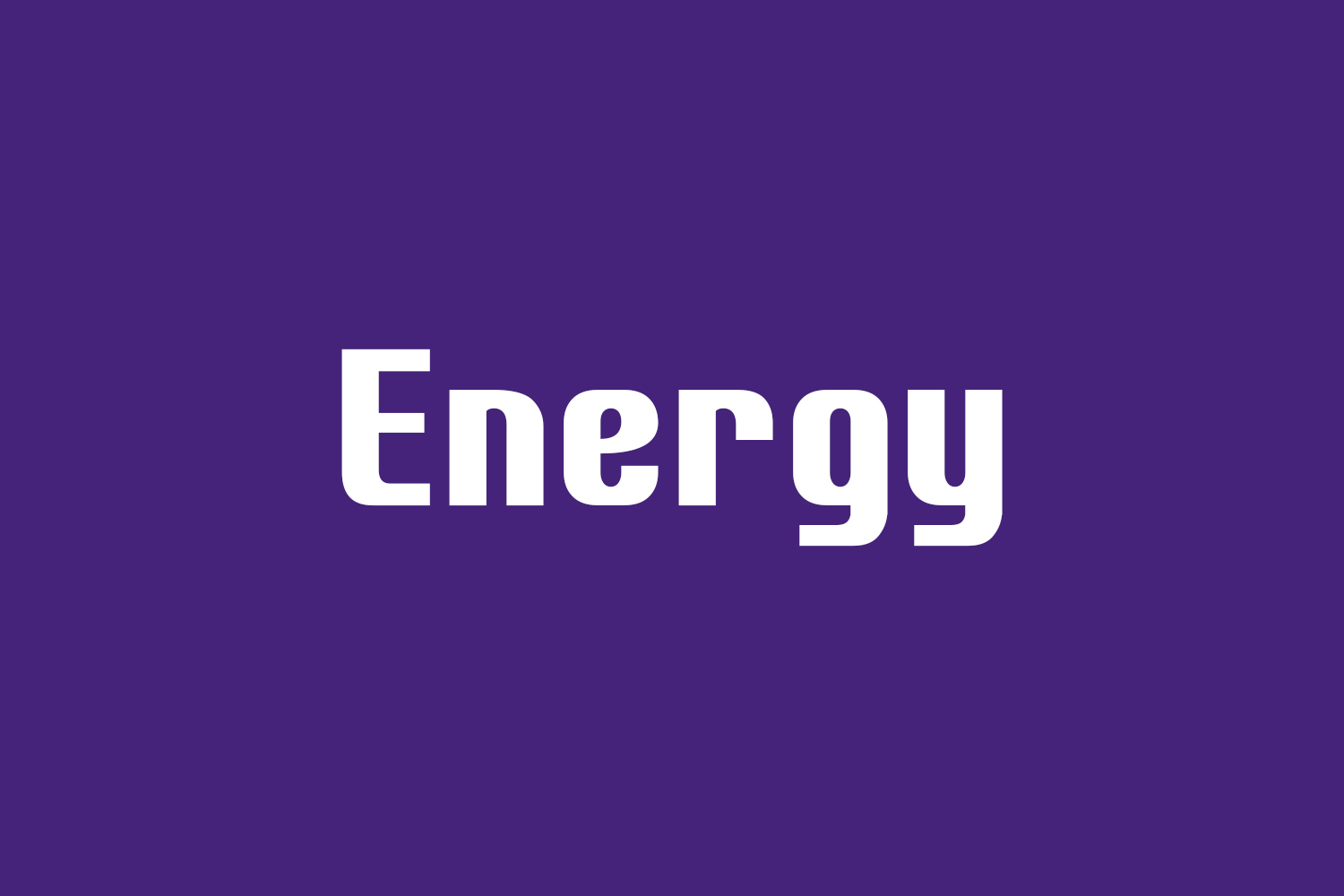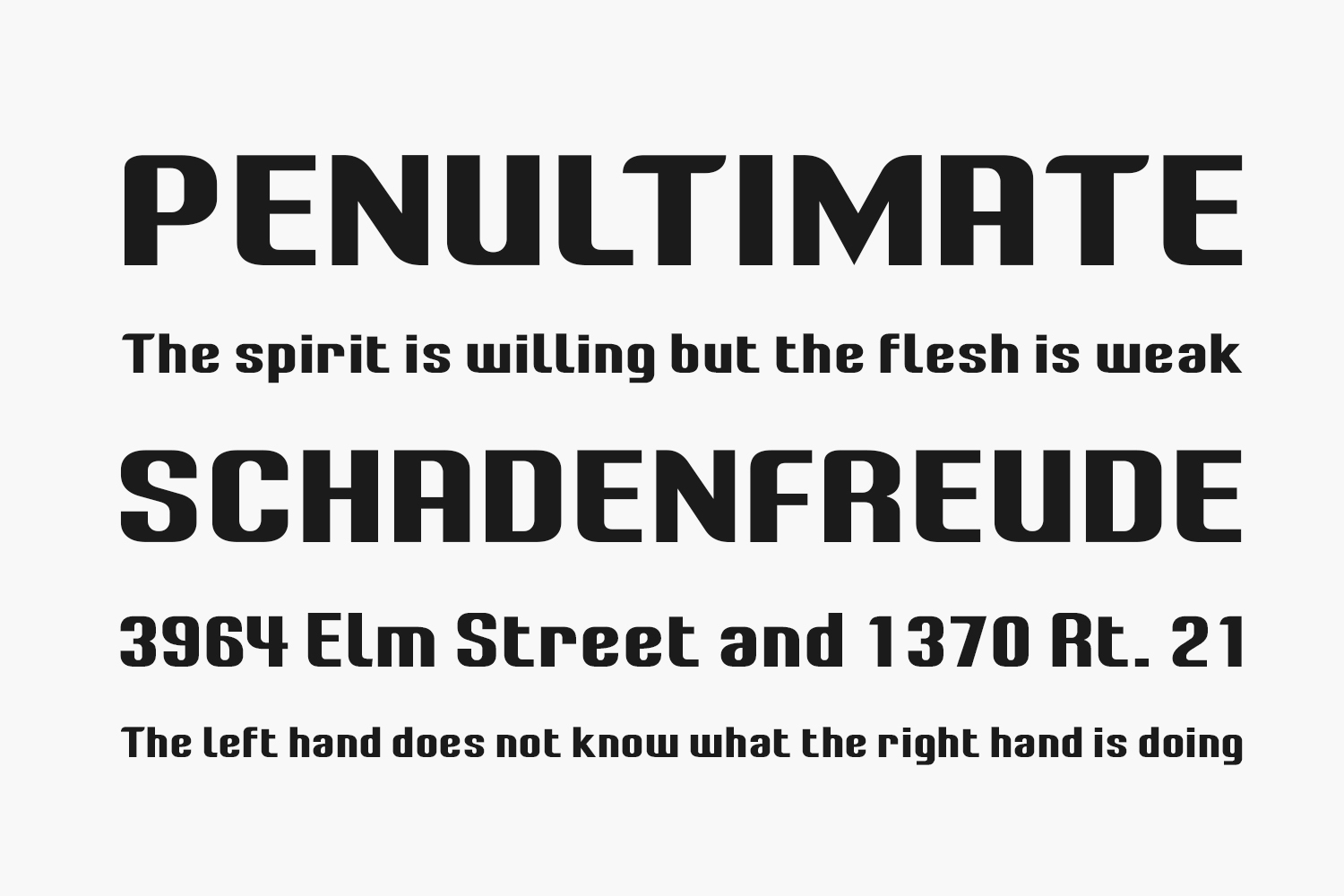
Energy Free Font Family is a blocky font that has the same structure as the early Lucozade font seen in various websites and elements of its wise. Energy Free Font Family was designed by LyonsType and is free for personal or commercial use.